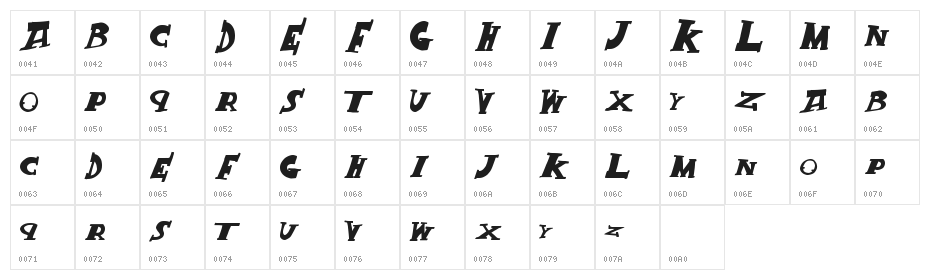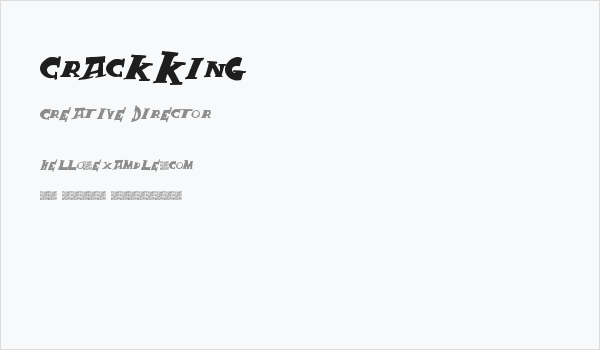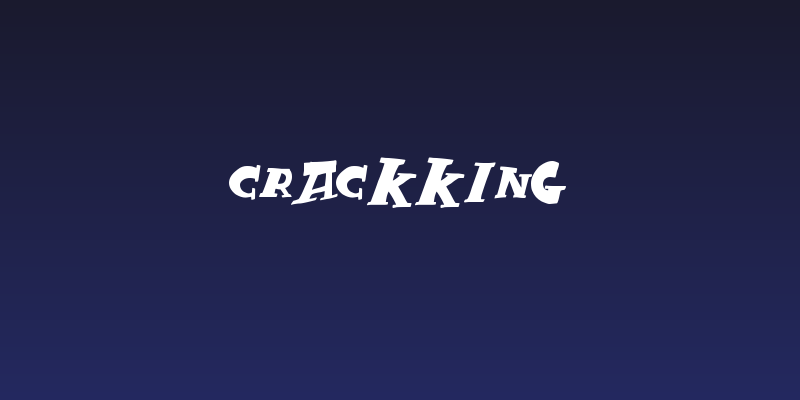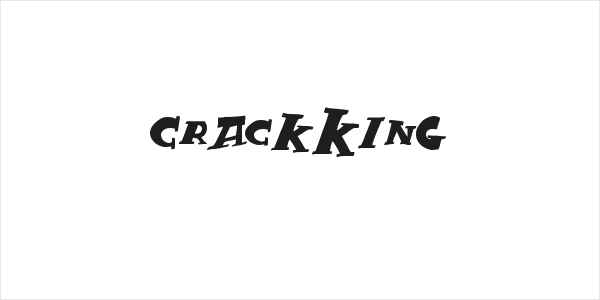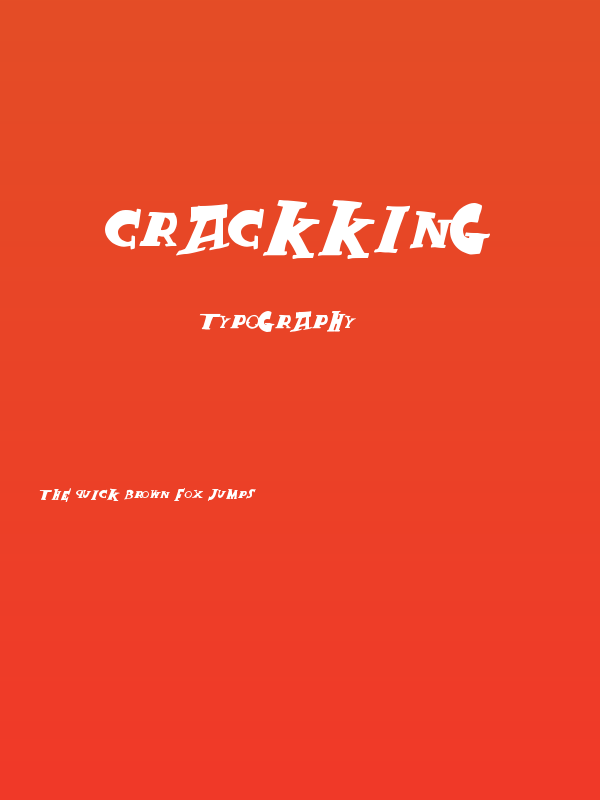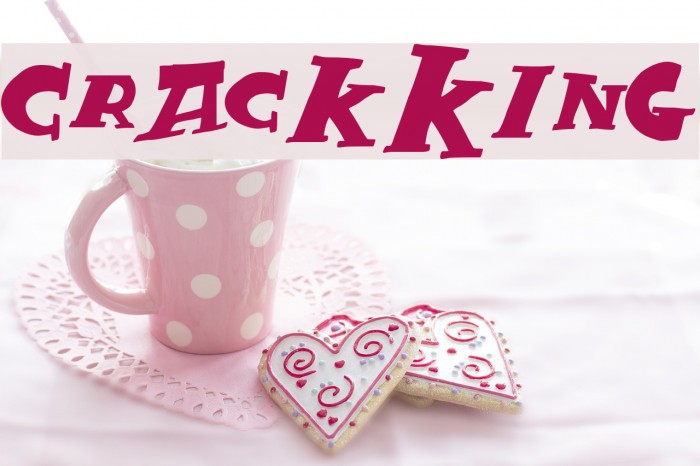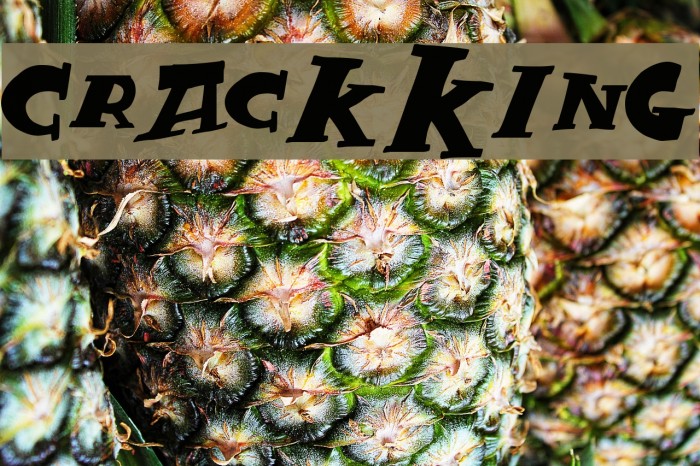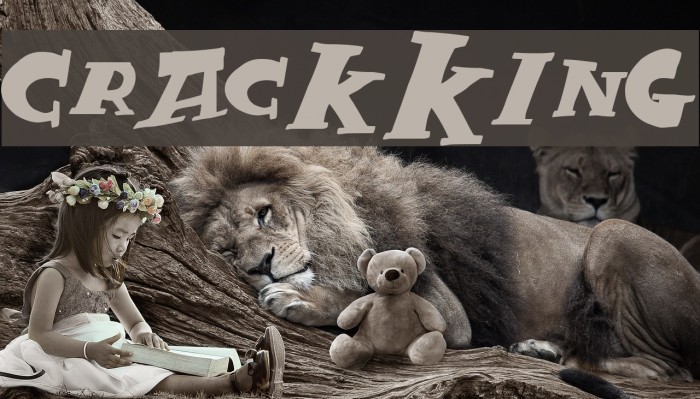
CrackKing Font
CrackKing Description
This font features a bold and dynamic style with sharp, angular edges and a slightly distorted appearance, giving it a rebellious and edgy feel. The uppercase letters are particularly striking, with exaggerated serifs and varying stroke widths that create a sense of movement and energy. The lowercase letters maintain this boldness, though they are slightly more restrained in their design. The numerals and special characters follow the same aesthetic, ensuring consistency across all glyphs. This font is ideal for projects that require a strong visual impact and a sense of unconventional style.
| Proposed Projects | Ideal for music album covers, skateboarding brands, graffiti art, and edgy fashion labels. |